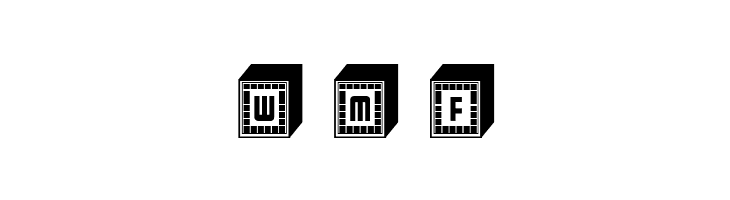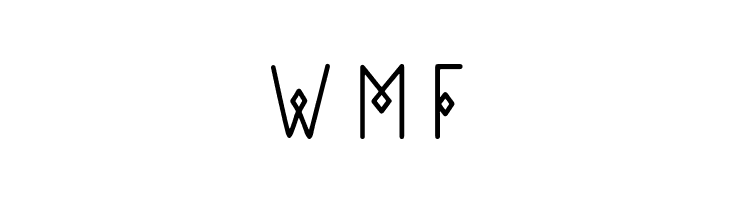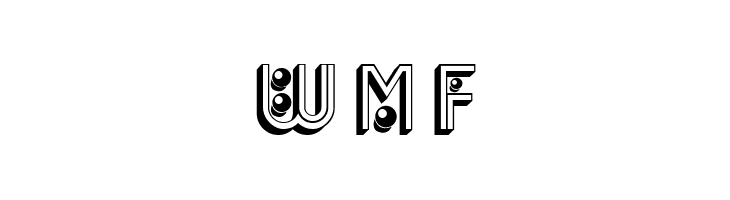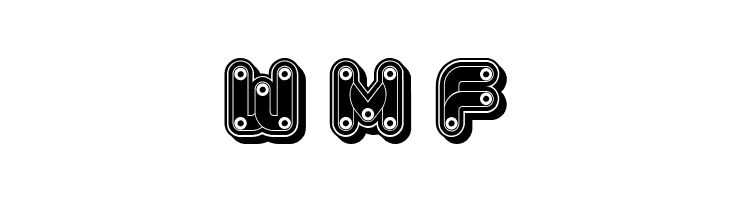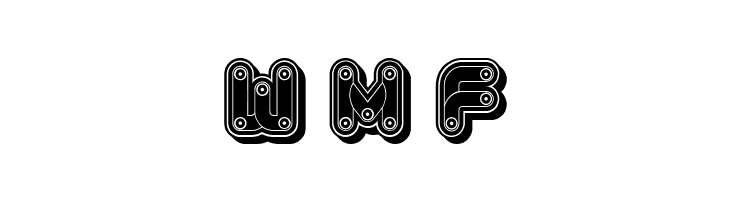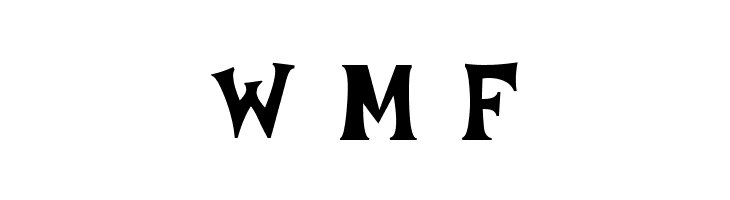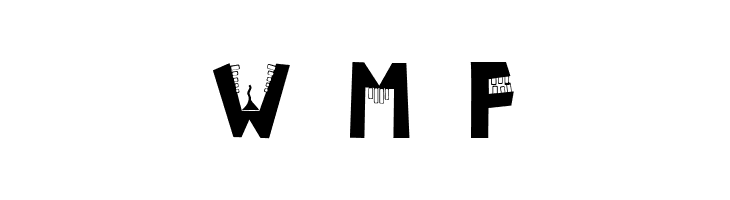
A playful, casual handwritten font with irregular strokes and an organic flow.
A playful, decorative font with geometric elements and a modern touch.
A bold, decorative font with a three-dimensional, patterned design.
A geometric and futuristic font with clean lines and angular shapes.
A bold, geometric font with a futuristic, angular design.
A bold, decorative font with a cable-like, 3D design ideal for tech-inspired projects.
A bold, decorative font with a cable-like, tech-inspired design.
A bold, cable-inspired decorative font with a modern industrial feel.
A playful, cactus-themed decorative font with bold, rounded characters.
A playful font with cactus illustrations integrated into each character, offering a whimsical and decorative style.
A bold, decorative font with intricate geometric patterns and a gothic influence.
A bold, playful font with a bubbly, enclosed design.
A bold, angular font with a rugged, geometric style.
A playful, hand-drawn font with characters in pebble-like shapes.
A bold, angular font with a scratched, edgy design.
A bold, edgy font with sharp, angular edges and a distressed texture.
A modern, geometric font with bold, structured characters.
A bold, decorative font with intricate patterns and thick outlines.
A bold, blocky font with a 3D shadow effect and square framing.